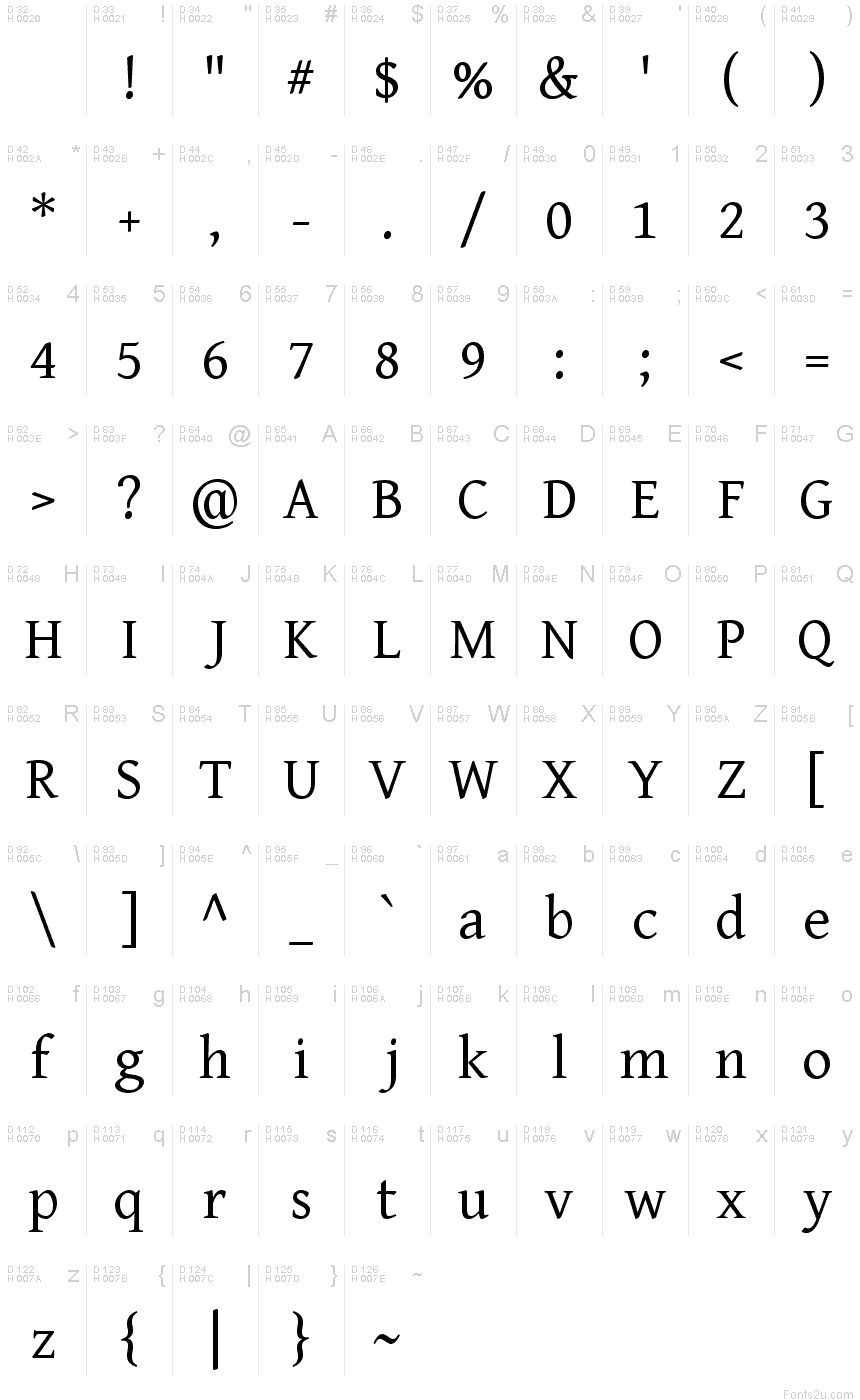
Gentium
Gentium font by J. Victor Gaultney is a free serif typeface that makes long reading feel calm and effortless. Its gentle stroke contrast, roomy counters, and slightly calligraphic curves give text a warm, bookish texture without feeling fussy or dated. Letters sit with an easy rhythm that holds together at small sizes, so paragraphs feel smooth instead of noisy or cramped.
Using Gentium, you can set multilingual books, research papers, reports, academic websites, presentations, and thoughtful blogs with quiet authority. This free font shines in projects that need serious tone plus human warmth. For a clean hierarchy, pair Gentium with a simple geometric sans for headings and let Gentium handle body copy at modest sizes with generous line spacing.